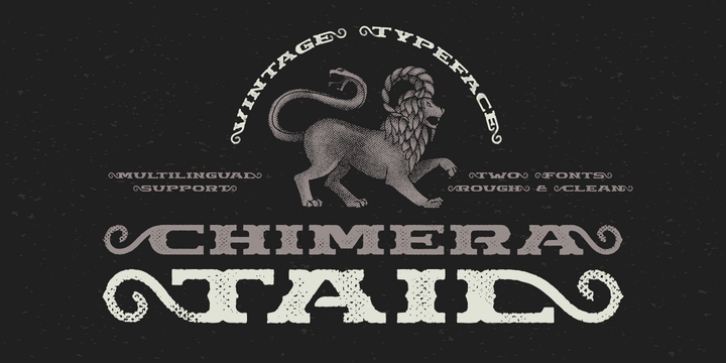
Hello! Presenting a vintage dark font “Chimera Tail”. It’s a wide textured typeface with automatically replaceable initial and final extended characters. Also a clean version without texture is included.